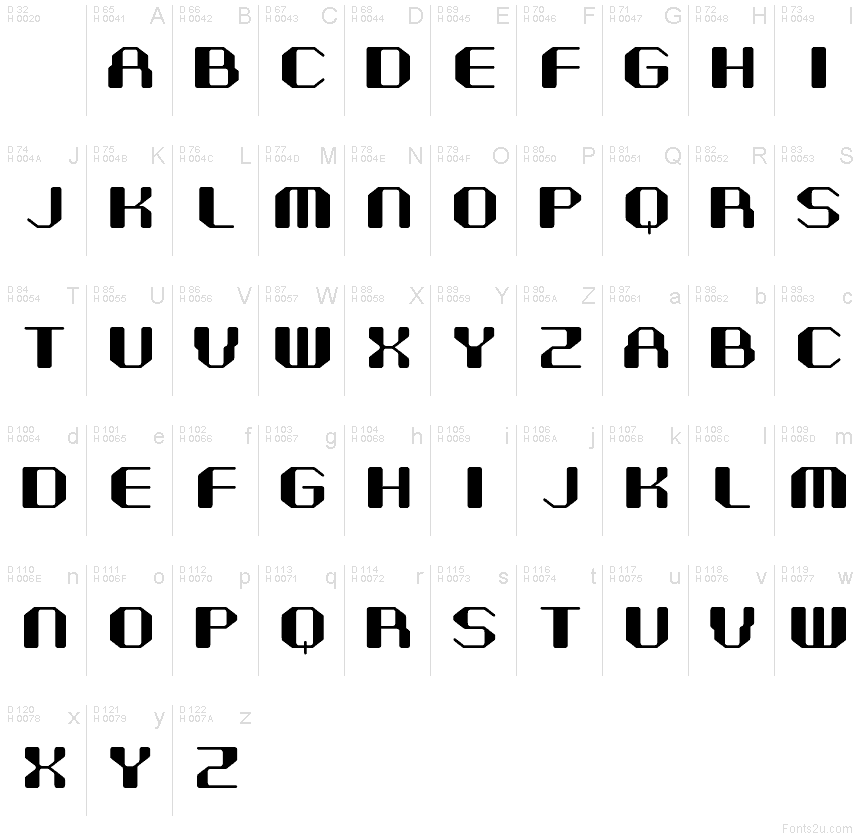
Delaver Book Regular
Delaver Book font is a free techno display font by Vladimir Nikolic. The expanded bold typeface has a unique yet orderly geometric design that looks blocky, high-impact, and architectural-like. It is retro-inspired and carries clear influences from earlier modernist schools of font design.
Its strong characters make it suitable for editorial use in magazines as well as book designs including postcards, invitations, posters, and banners. It can also be used in stationery branding projects where the geometric modern look adds visual value like flyers, business cards, ID cards ,and letterheads to name a few.